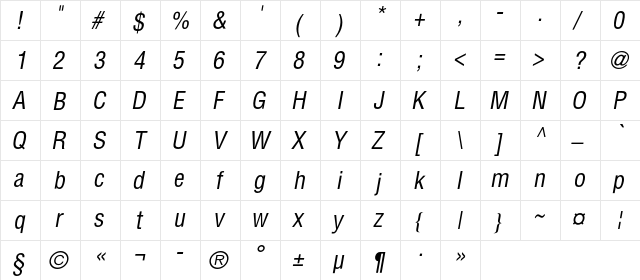
AGLettericaCondensedC Italic
Design Context for AGLettericaCondensedC Typeface
AGLettericaCondensedC is a composed and adaptable typeface that performs quietly and consistently across a wide range of design contexts. Its italic angle brings a sense of urgency and motion to the letterforms. The condensed width makes it efficient for tight spaces without sacrificing legibility.
Pro Tip: Use AGLettericaCondensedC for emphasis, pull quotes, and subheadings where its slanted energy can add rhythm to the layout.